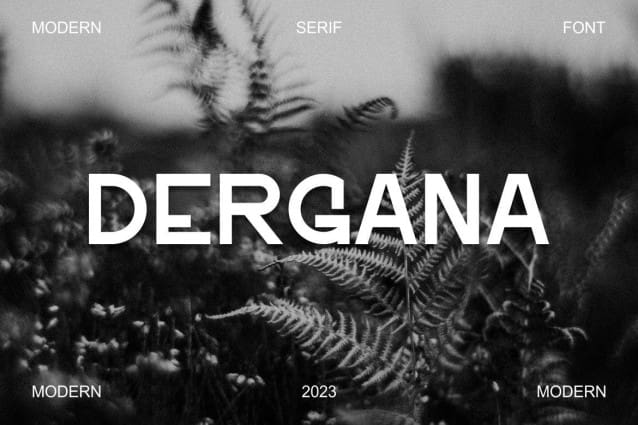
Dergana Font
Dergana Font is a modern and authentic font. Perfect for both professional and branding needs of a product. This font is suitable for any branding project like quotes, logo, blog header, poster, banding, letter, invitation, stationery